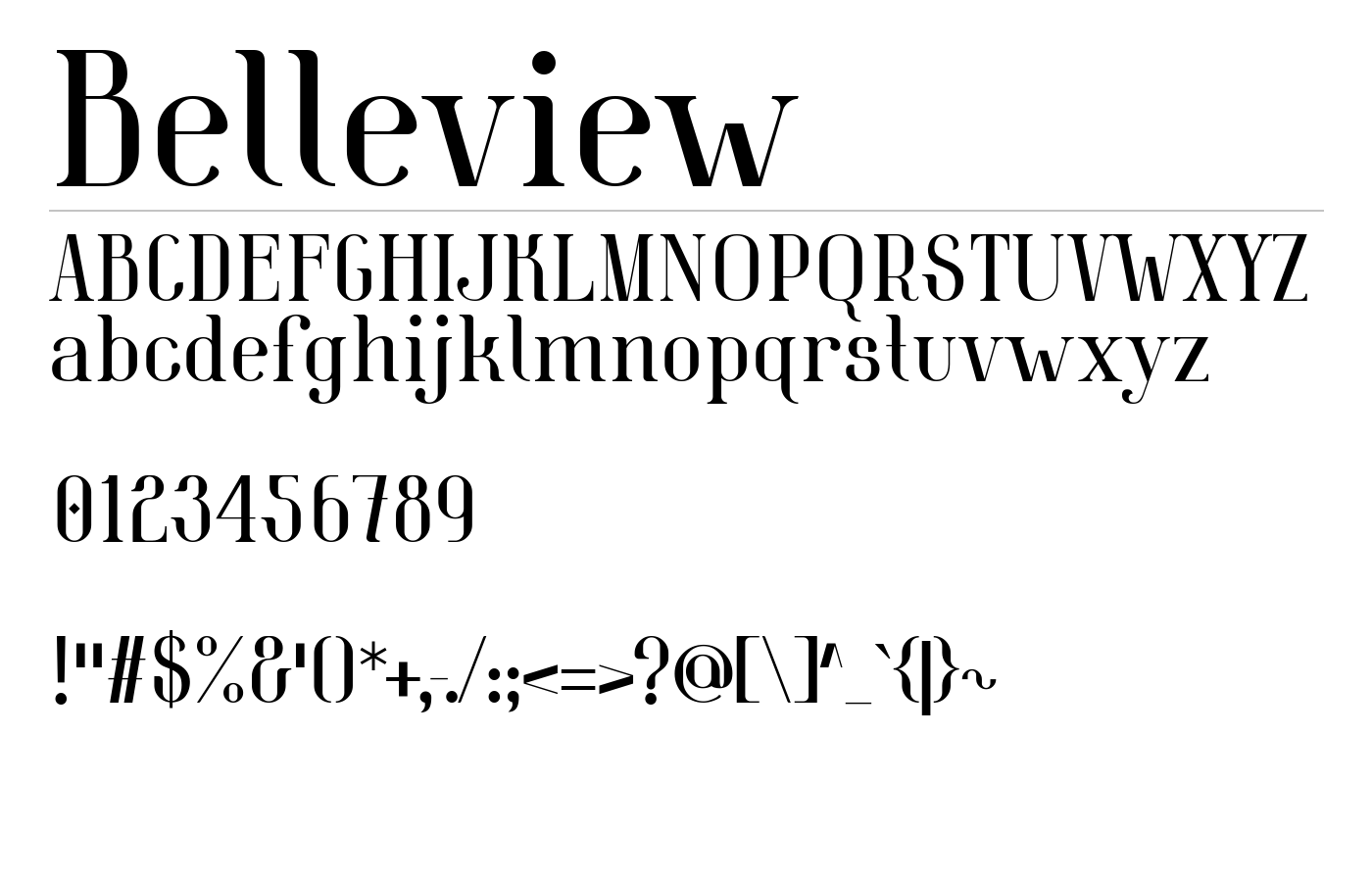
Belleview is a stylish serif font with a tall, condensed structure and high contrast between thick and thin strokes, lending it a refined and elegant appearance. Its sharp, bracketed serifs combined with unique letterforms like the single-story lowercase 'g' and dramatic uppercase shapes create a sophisticated, modern vintage vibe. This font works beautifully for luxury branding, editorial headlines, and fashion packaging where a sense of class and distinction is desired.
Belleview Font
About Belleview Font
| Designer | Thor Christopher Arisland |